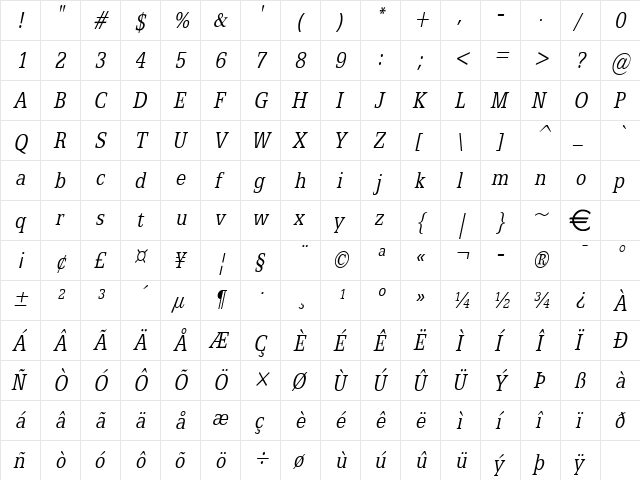
EggoCondensed Italic
Design Context for EggoCondensed Typeface
EggoCondensed offers clean, dependable letterforms without strong stylistic allegiance, making it a practical choice for designers who need flexibility. The slanted form adds forward momentum and visual energy. Its narrow stance lets it pack a punch even in space-constrained designs.
Pro Tip: Use EggoCondensed for emphasis, pull quotes, and subheadings where its slanted energy can add rhythm to the layout.